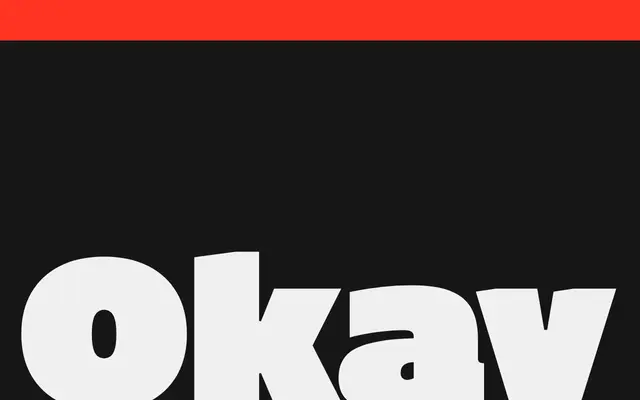
Okay
Okay Type · Jackson Showalter-Cavanaugh · 2019
A single ultra-bold display sans by Jackson Showalter-Cavanaugh that reinterprets Gill Kayo with dry wit rather than slapstick excess, available across three widths with a variable font offering fine-grained control over width and extender length.
Born from a failed attempt to tame Gill Kayo's goofiness, Okay settles into its own register: punchy, warm and faintly sardonic rather than cartoonishly heavy. The family spans Black, Narrow and Condensed widths, each with a true italic, and a variable font exposes a Width axis from 60 to 100 alongside a custom XTND axis for controlling ascender and descender length. It received awards from Communication Arts and the Society of Typographic Arts, and was selected for Typographica's Fontiest Fonts of 2019.
Described by the foundry as an extra-bold, kinda-humanist display sans, it draws from Gill Kayo's ultra-bold tradition while moderating its exaggerated forms into something drier and more controlled across multiple widths.